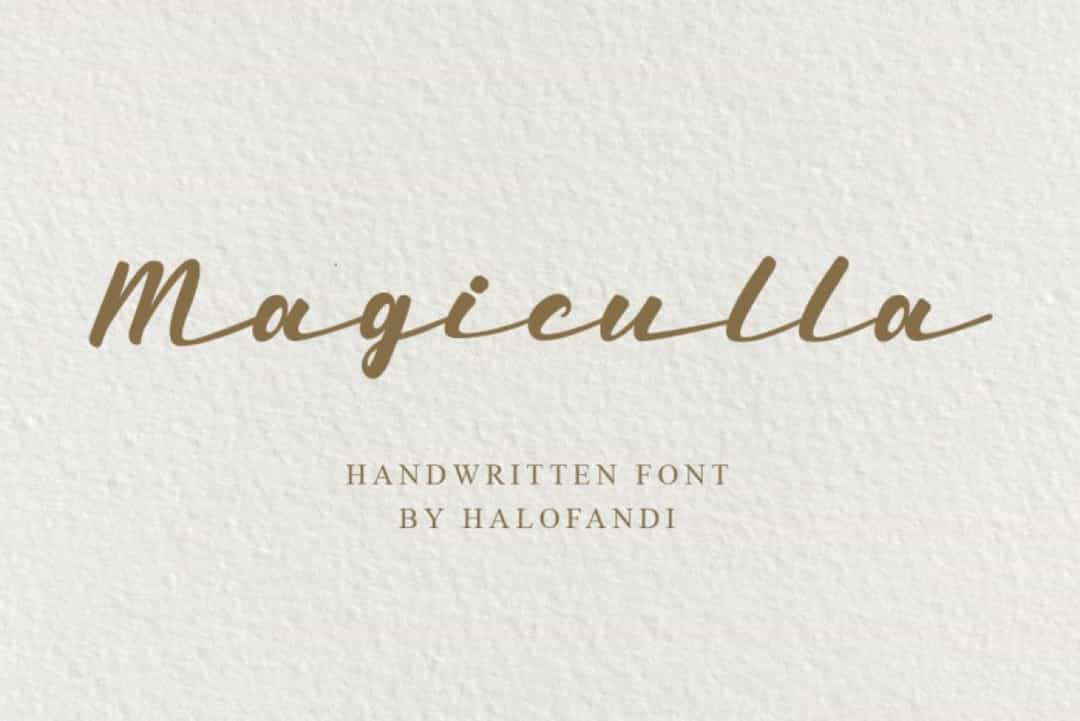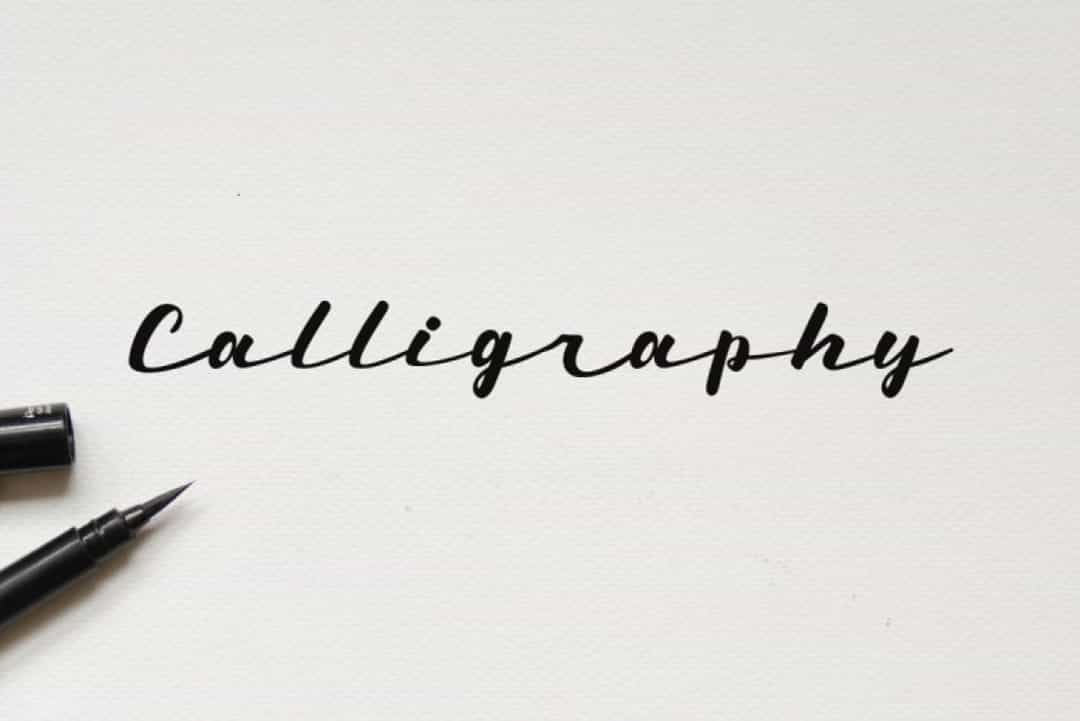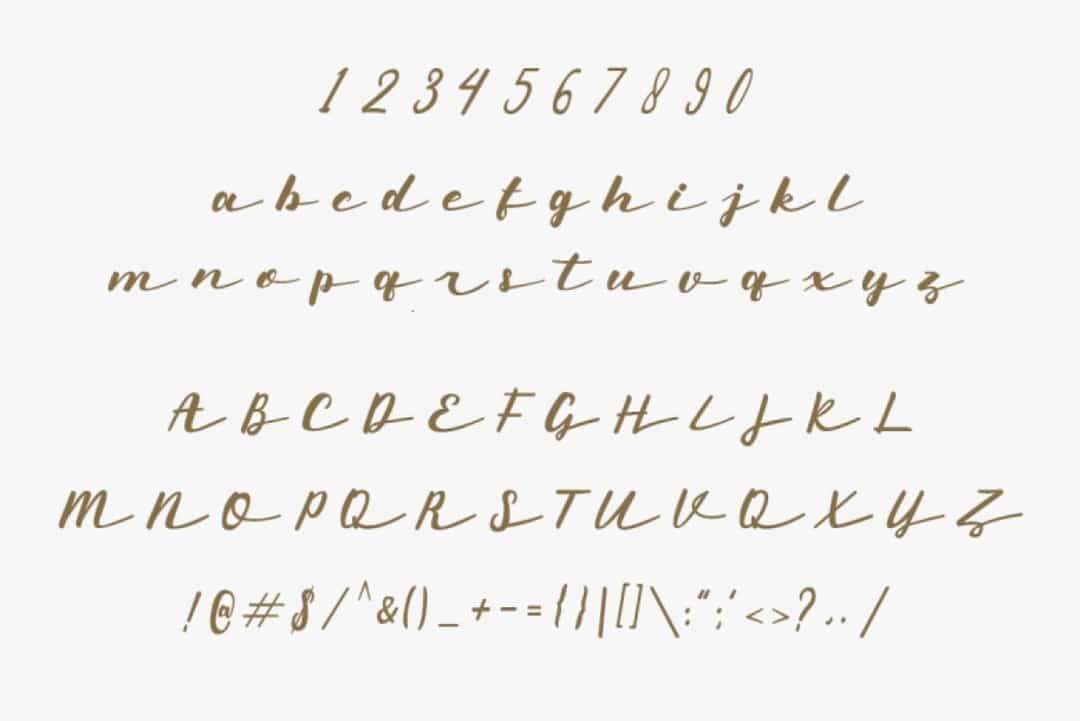
Discover Magiculla Modern Handwritten Font, part of the Handwritten Script collection—a versatile and unique font perfect for adding a personal touch to your projects. Download it for free and enjoy crafting designs with style, from invitations to social media posts. This font is available exclusively for personal use, giving you the freedom to create without limits. Unlock your creativity with Magiculla Modern Handwritten Font today!
Magiculla is a beautiful signature font that is intended to be used in weddings invitations, Thank you cards, Greeting cards and quotes logos, business cards and any design that require the use of handwritten style. Therefore, its classic look makes it more appropriate to be used.